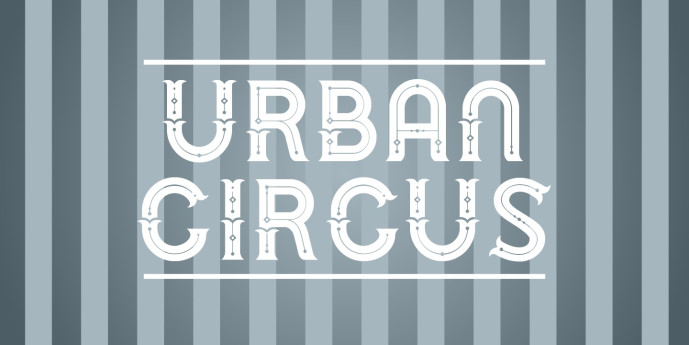
Urban Circus Font Family
Designer: Chank
Urban Circus Font Family is a big, grand display font that celebrates both the thoughtful, carefully constructed elements of contemporary urban planning and also the joyful, chaotic and magical elements of the circus. This typeface comes in four font styles which have a total of eight different alphabets that can be used together to create dramatic poster headlines and titles. Use the different alphabets on overlapping layers in different colors for a striking poster effect. The basic concept for this font came from a big fancy T that was drawn for a poster for an event at the Minneapolis Institute of Arts. At the event, MIA visitors were invited to spontaneously craft a letter out of play-dough, yielding a fun-filled assortment of letters and numbers inspired by that big ol’ T. That workshop event yielded a fun photofont that helped fuel the direction for what eventually became the Urban Circus font. The characters here have all been carefully re-drawn with crisp, clean lines while retaining a fanciful, spontaneous character.